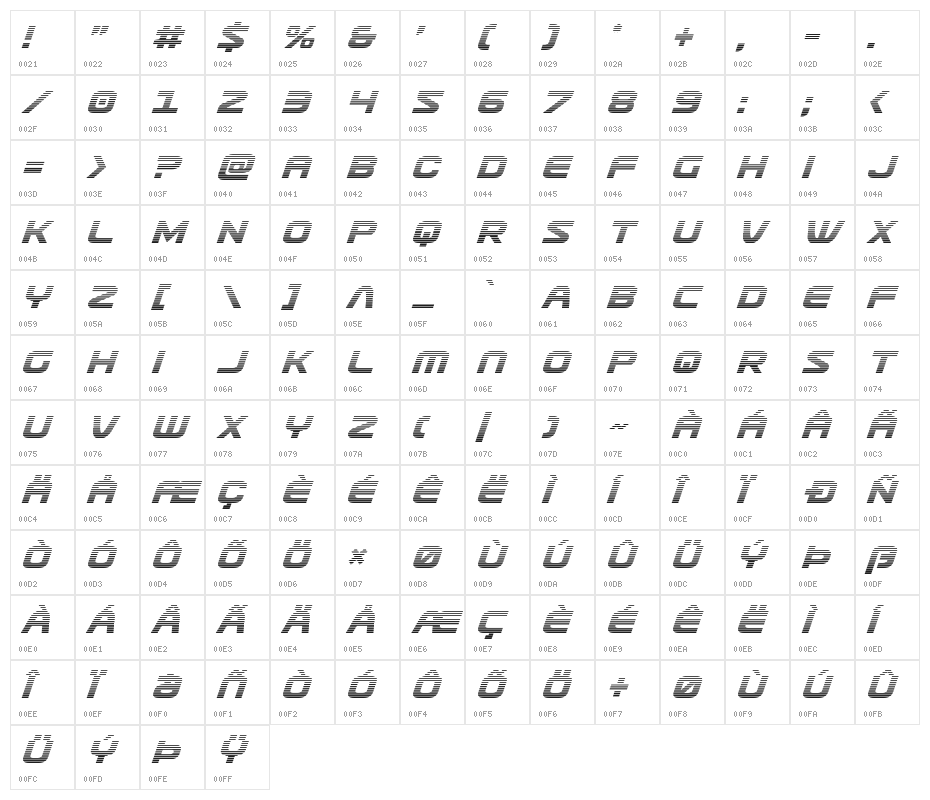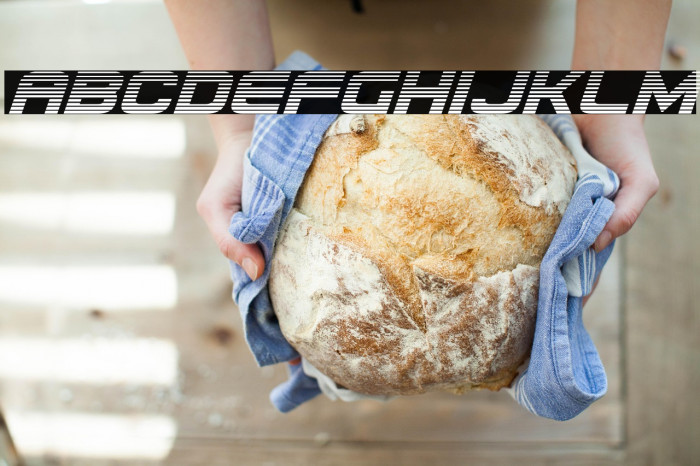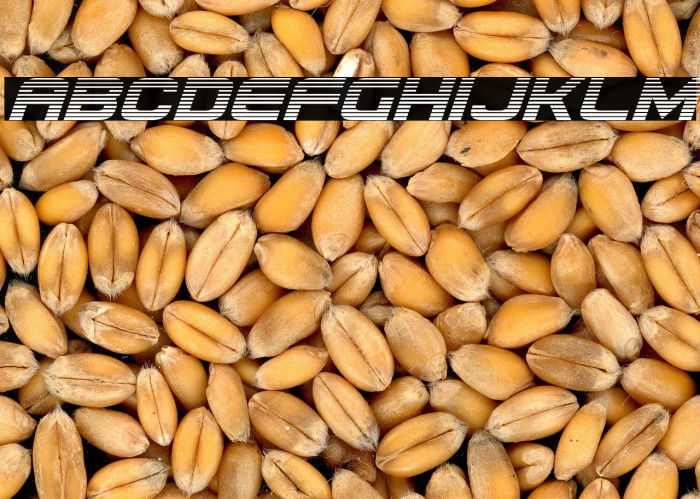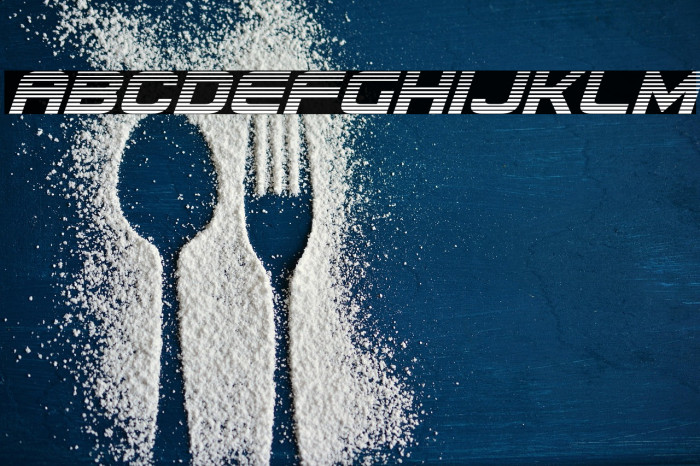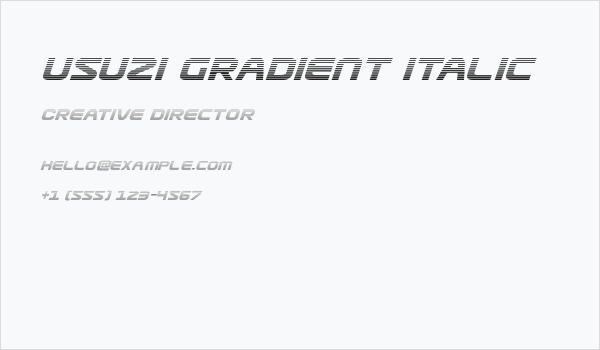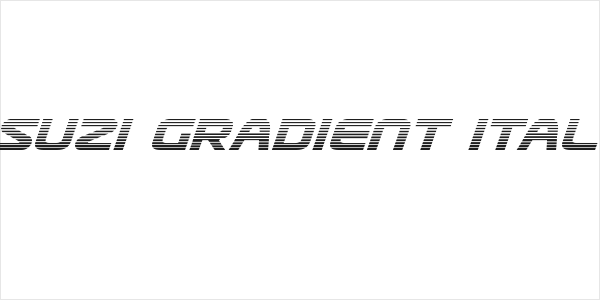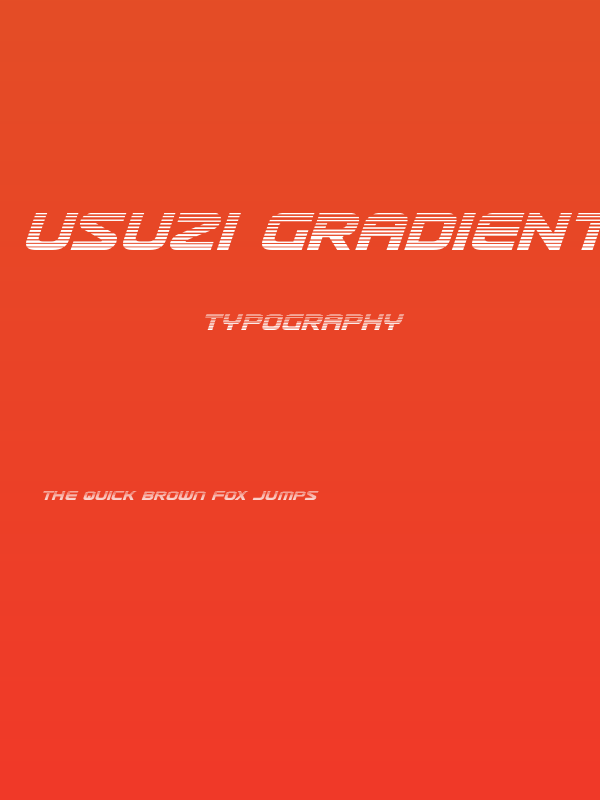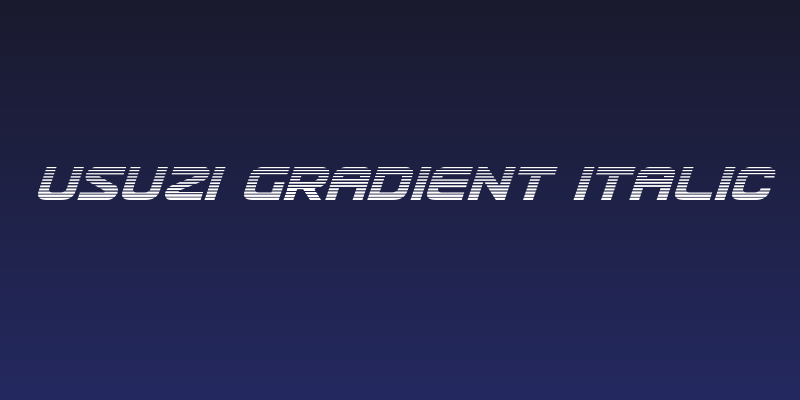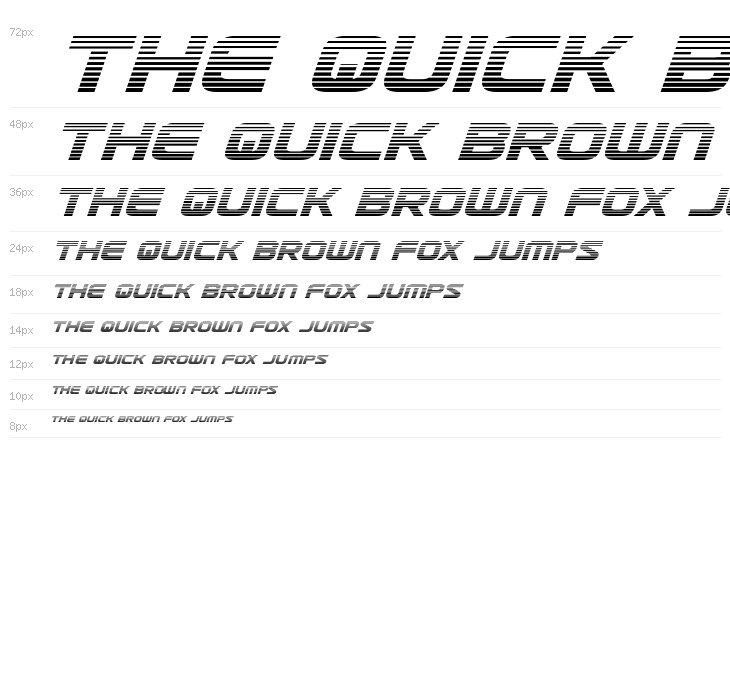
Usuzi Gradient Italic Font
Usuzi Gradient Italic Description
This font features a dynamic and modern design with a distinct italic slant, giving it a sense of motion and speed. The characters are composed of horizontal lines that create a gradient effect, enhancing the futuristic and sleek appearance. The uppercase and lowercase letters maintain a consistent style, with the same line-based structure applied to numbers and special characters. This design choice makes the font particularly eye-catching and suitable for projects that require a bold and innovative look.
| Use Case | Logos, Headlines |
| Proposed Projects | Ideal for branding, sports team logos, automotive advertisements, and technology-related projects. |